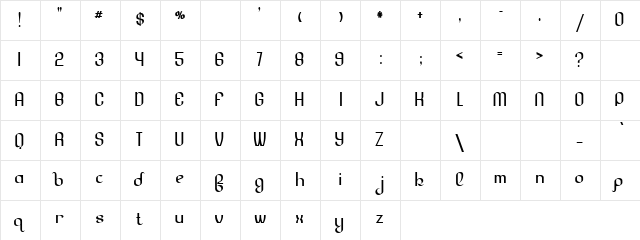
Italian Lipi Regular
Design Context for Italian Lipi Typeface
Italian Lipi is a composed and adaptable typeface that performs quietly and consistently across a wide range of design contexts.